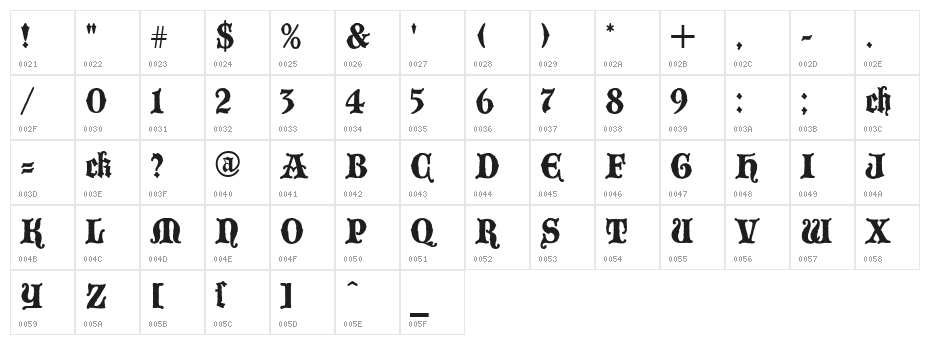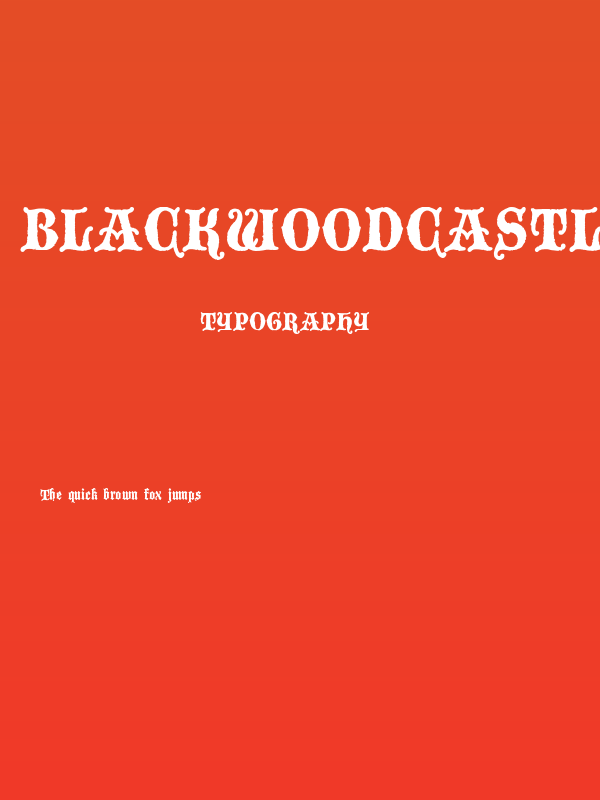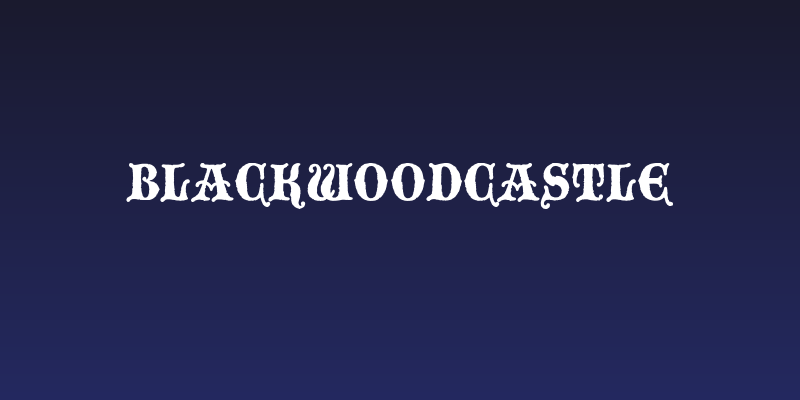
BlackwoodCastle Font
BlackwoodCastle Description
This font exudes a medieval and gothic aesthetic, characterized by its intricate and ornate letterforms. Each character is crafted with elaborate details, featuring sharp edges and dramatic flourishes that evoke a sense of historical elegance. The uppercase letters are particularly bold and commanding, while the lowercase letters maintain a consistent style with slightly more subtle embellishments. The numerals and special characters are equally decorative, ensuring a cohesive look throughout. This font is ideal for projects that require a touch of old-world charm and sophistication.